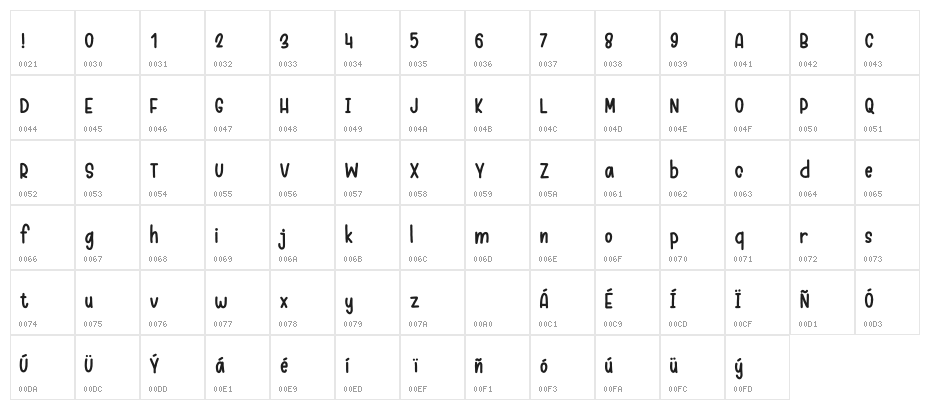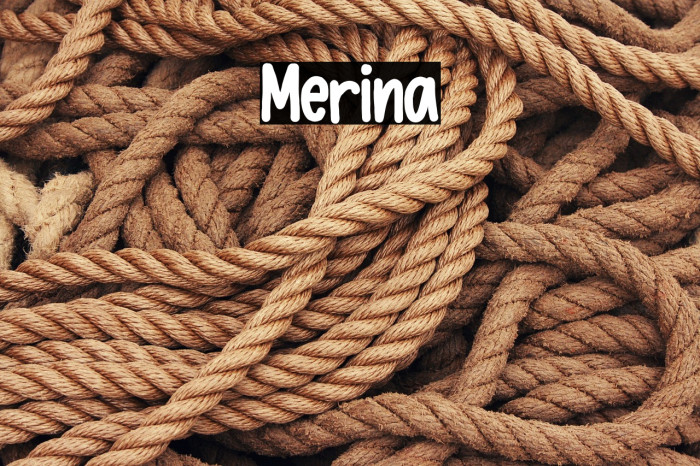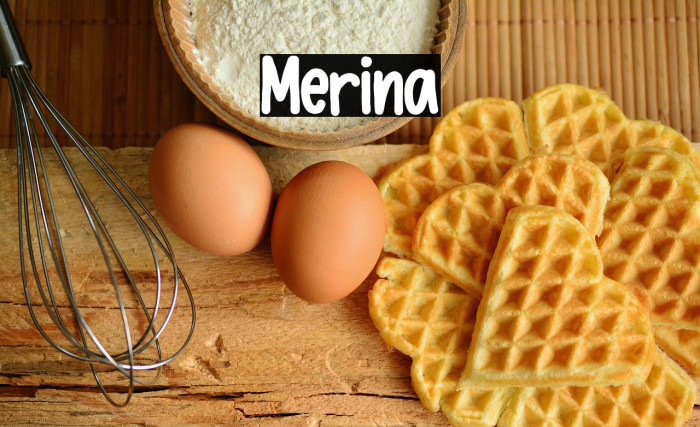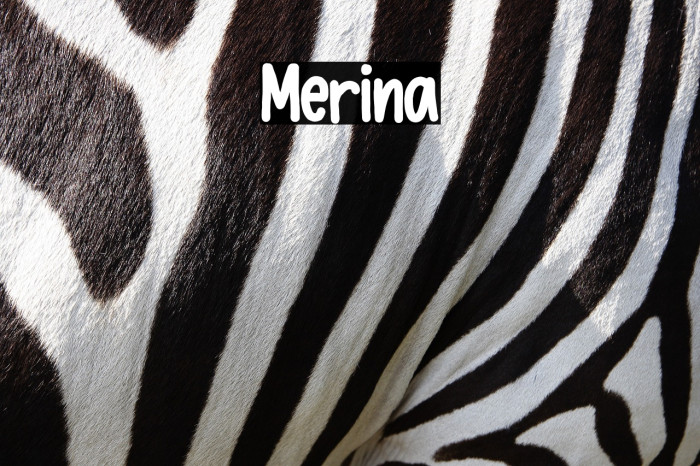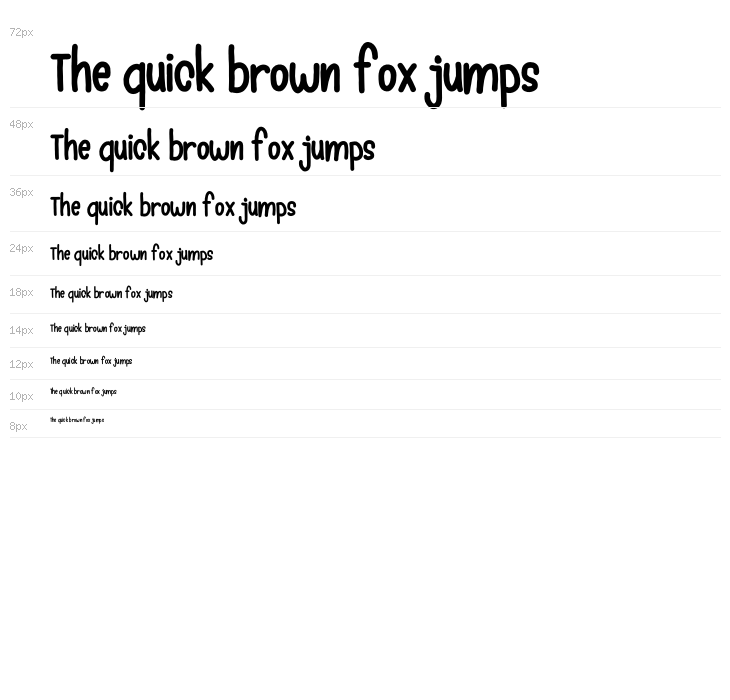
Merina Font
Merina Description
This playful and rounded font features a friendly and approachable style, characterized by its smooth curves and consistent stroke width. The letters have a casual, handwritten appearance, making it ideal for projects that require a personal touch. The uppercase and lowercase letters maintain a uniform height, contributing to its cohesive look. The numerals are clear and easy to read, while the special characters blend seamlessly with the overall design. This font's simplicity and charm make it versatile for various creative applications.
| Use Case | Headlines, Informal text, Branding |
| Proposed Projects | Ideal for children's books, greeting cards, casual branding, and social media graphics. |